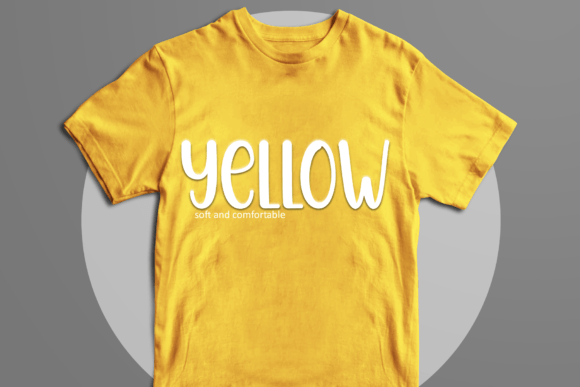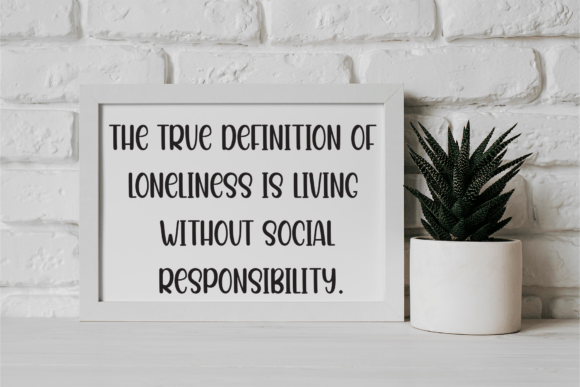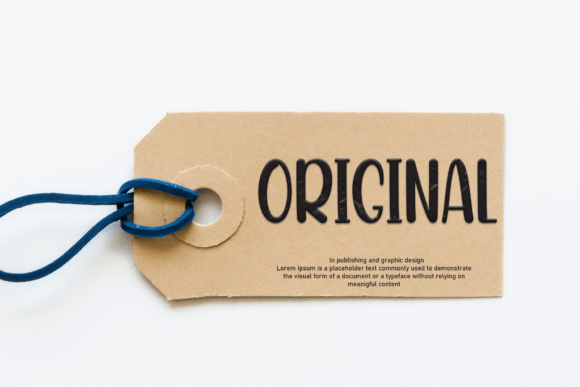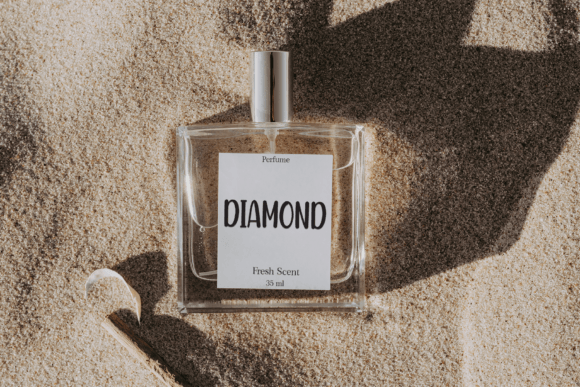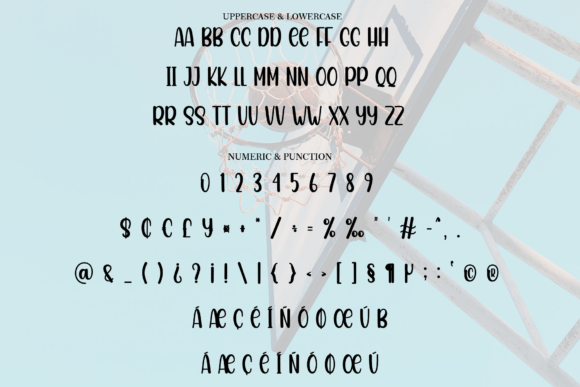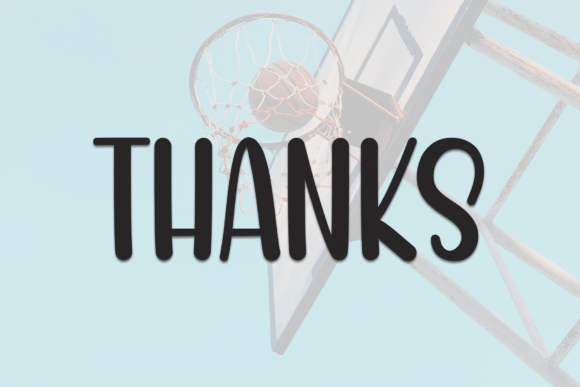
Get Ready to Score with Basketball Font
Do you ever find yourself scribbling down ideas for a design project in a notebook, only to realize that your handwritten notes are the perfect starting point for your next creative masterpiece? That’s exactly what happened to me when I stumbled upon Basketball Font, a sweet and friendly handwritten font that’s perfect for adding a fun touch to any design.
Basketball Font is ideal for writing wedding invitations, cards, and any other design that needs a playful twist. Its fresh and cute aesthetic makes it a valuable addition to any designer’s toolkit. Whether you’re working on a children’s book, a birthday party invitation, or a blog post, Basketball Font is sure to bring a smile to your readers’ faces.
Basketball Font Key Features
- Unique Characteristics: Basketball Font features bold, dynamic lettering that is reminiscent of basketball courts and scoreboards, making it a unique and eye-catching choice for sports-related projects.
- Font Style: The font comes in both regular and bold styles, allowing users to choose the level of emphasis they need to convey their message.
- Font Weight: The font has a medium to heavy weight, making it suitable for use in headlines and titles where a strong, attention-grabbing font is needed.
Basketball Font Review
Overall, I think the Basketball Font is a solid, if unremarkable, choice for a sports-themed design project. There are some things that work well, but also some limitations that might hold you back.
- Unique design: The font’s bold, dynamic lines evoke the energy and movement of basketball, making it a great choice for sports-related projects.
- Highly legible: The font is clear and easy to read, even at smaller sizes.
- Customization options: Basketball Font comes with a range of customization options, including different weights and styles, allowing you to tailor the font to your specific needs.
- Limited expressiveness: While the font is bold and dynamic, it can feel a bit one-dimensional, lacking the subtlety and nuance of other fonts.
- Not ideal for body text: Due to its bold lines and limited expressiveness, Basketball Font is best used for headlines and titles, rather than body text.
- Lack of international support: The font may not include the full range of international characters and languages, which could be a limitation for global design projects.
Overall, the Basketball Font is a solid choice for sports-themed projects, but may not be the best fit for more complex or nuanced designs.